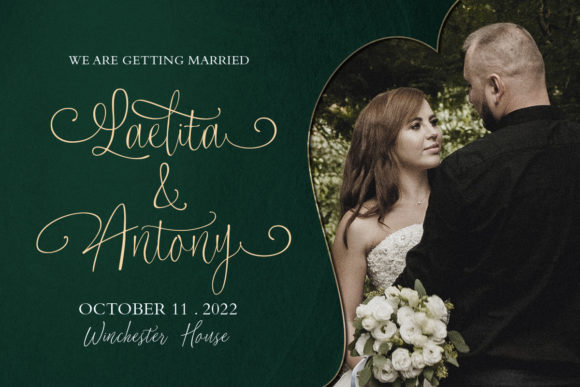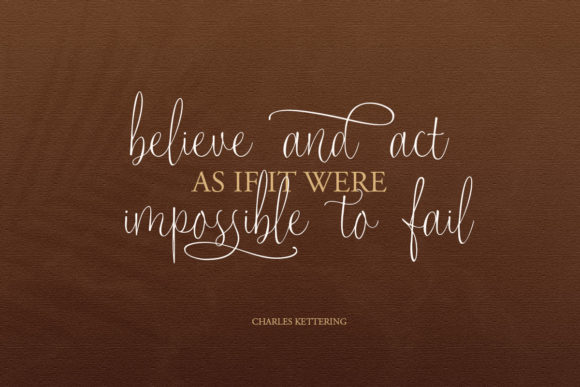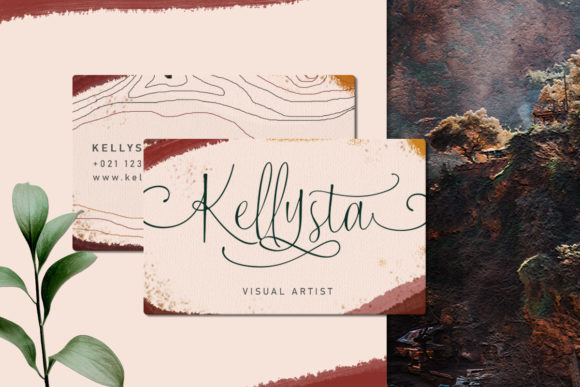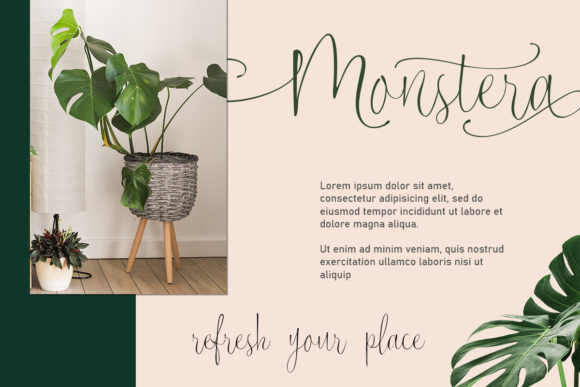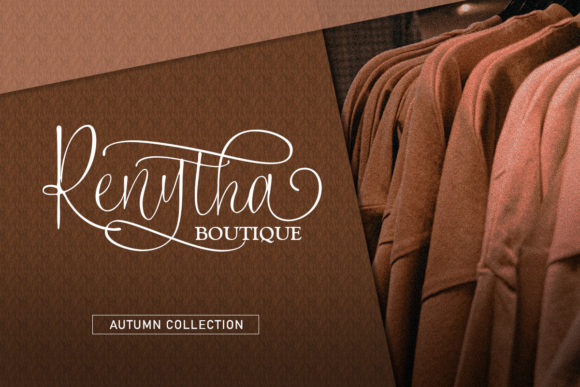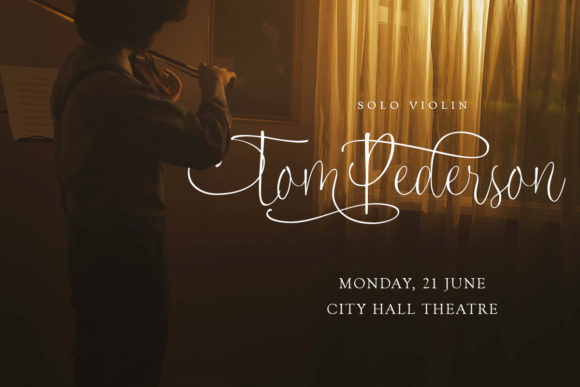
Introduction to Lucky Spark Font
Have you ever stumbled upon that perfect font that elevates your design project to the next level? For many designers, that moment is like finding a needle in a haystack. It’s the moment when all the pieces fall into place, and the design comes alive. For me, that moment was when I discovered the Lucky Spark Font.
This enchanting script font is more than just a pretty face. Its beautiful and well-balanced characters make it a valuable asset for any designer working on a creative project. Whether you’re creating a logo, a wedding invitation, or a social media post, the Lucky Spark Font is sure to bring a touch of elegance and sophistication to your design.
Key Features of Lucky Spark Font
- Includes 200+ unique glyphs and characters for added expressiveness
- Designed to be highly legible at resolutions up to 300 DPI
- Supports a wide range of languages, making it an ideal design resource for global projects
Honest Review: Lucky Spark Font
I recently had the opportunity to work with the Lucky Spark Font, and I must say it’s been a game-changer for my creative projects. As a designer, I’m always on the lookout for high-quality fonts that can elevate my designs and make them stand out. The Lucky Spark Font definitely delivers.
- ✨ High-quality design that looks amazing in various contexts
While the Lucky Spark Font is a fantastic resource, I did encounter a few limitations:
- ⚠️ Limited font styles and weights, which may not be suitable for complex design projects
- ⚠️ Not all characters and symbols are available, which can be a problem for designers working on international projects
Overall, I’m very impressed with the Lucky Spark Font. It’s a great addition to any designer’s toolkit, and I’ve already used it in several projects. If you’re looking for a high-quality, free font that can add some sparkle to your designs, I’d definitely recommend giving it a try.
The Lucky Spark Font is perfect for:
– Blog posts
– Flyers and brochures
Tips for Getting the Most Out of Lucky Spark Font
For the best results, use the Lucky Spark Font in conjunction with other high-quality design elements.
Experiment with different font sizes and styles to create a unique look.
Alternatives to Lucky Spark Font
Great Vibes Font is a high-quality, elegant script font perfect for creative projects that require a touch of sophistication. It’s ideal for designing wedding invitations, quotes, and other typography-heavy materials. Great Vibes Font has a transparent background, making it easy to combine with other design elements. It’s a great alternative to Lucky Spark Font for designers looking for a more refined, cursive font.
Alex Brush Font is a beautiful, handwritten font that’s perfect for adding a personal touch to your designs. It’s ideal for use in creative projects, such as blog posts, social media graphics, and product packaging. Alex Brush Font has a unique, hand-drawn feel that’s similar to Lucky Spark Font, but with a more subtle, elegant style. It’s a great choice for designers looking for a high-quality, free download font.
Pacifico Font is a beautiful, elegant serif font that’s perfect for use in creative projects, such as branding, packaging, and advertising. It’s ideal for designers looking for a high-quality font with a transparent background. Pacifico Font has a classic, sophisticated feel that’s similar to Lucky Spark Font, but with a more refined, polished style. It’s a great alternative for designers looking for a reliable, free download font.